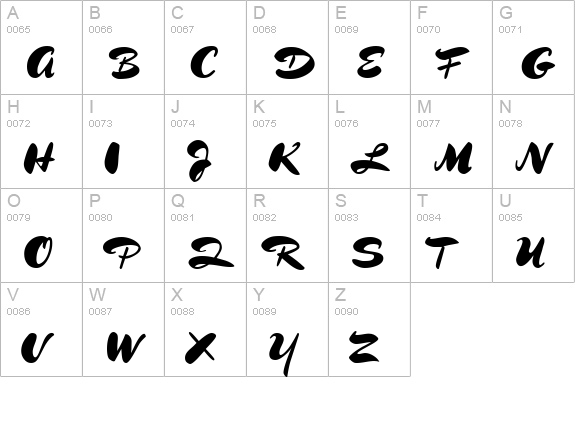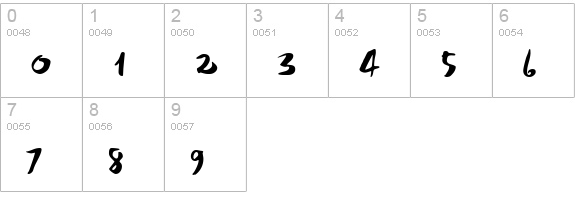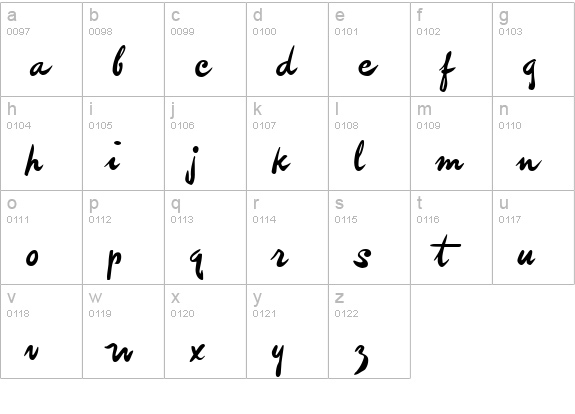
imitationTWO Font Details
ImitationTWO font is a stunning display typeface that exudes elegance and sophistication. With its unique and eye-catching design, this font is perfect for adding a touch of charm to any creative project. The intricate details and stylish curves of ImitationTWO make it stand out from the crowd and captivate the viewer's attention. This versatile font is ideal for a wide range of design applications, from branding and packaging to invitations and posters. Its sleek and modern appearance adds a touch of class to any project, making it a popular choice among designers and creatives alike. Best of all, ImitationTWO font is available for free download at FontsMarket.com. This means you can easily access this beautiful font and use it in your projects without any cost. Don't miss out on the opportunity to add this elegant and stylish font to your collection today!